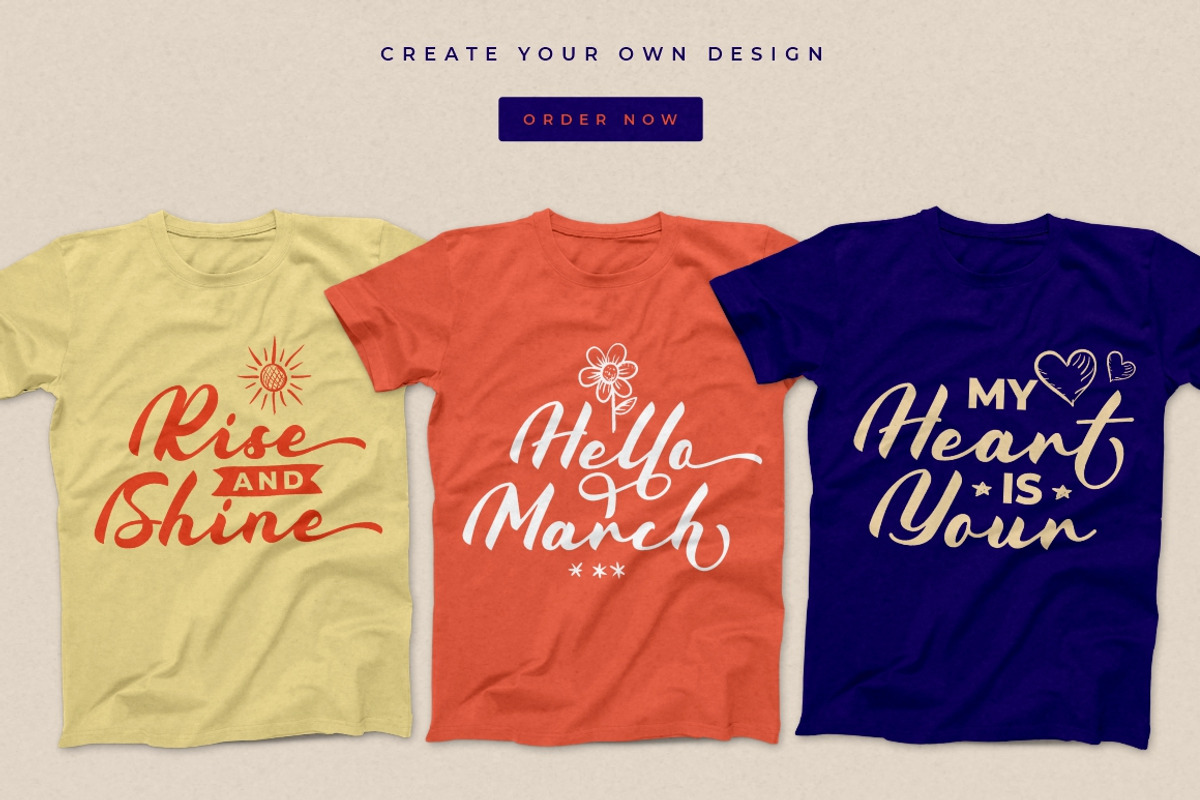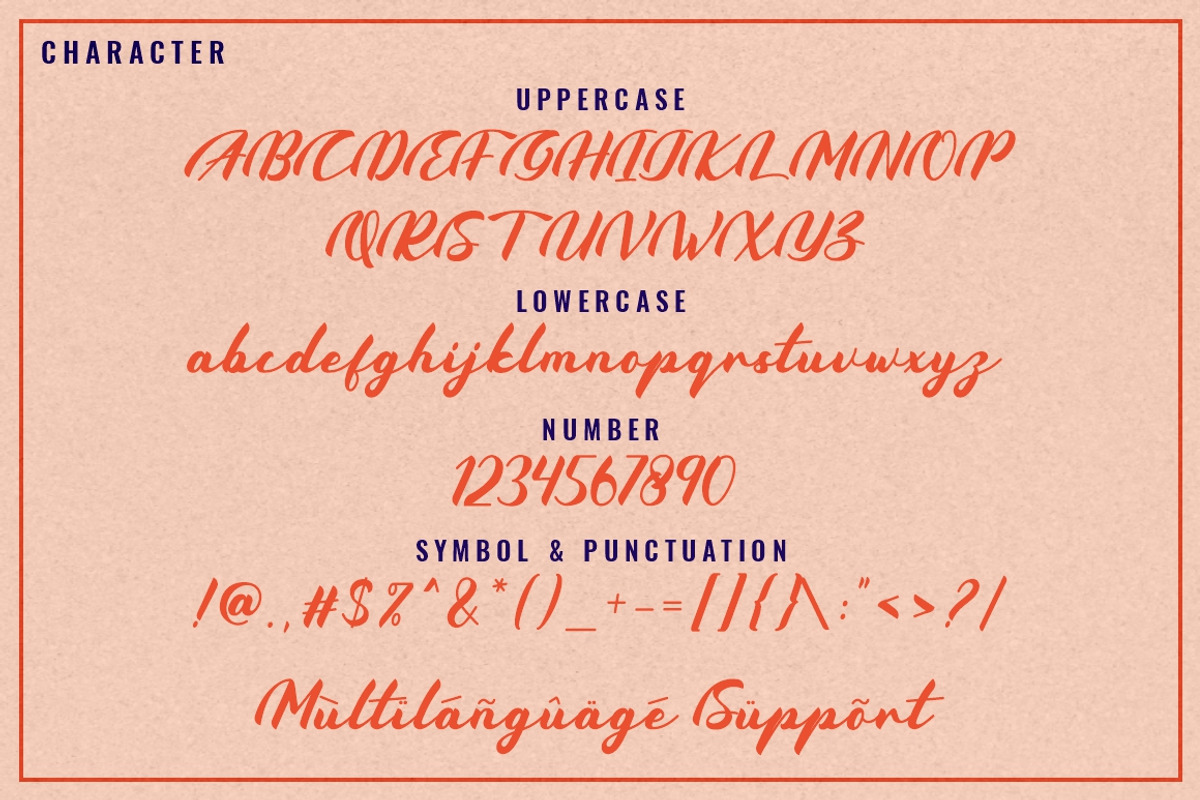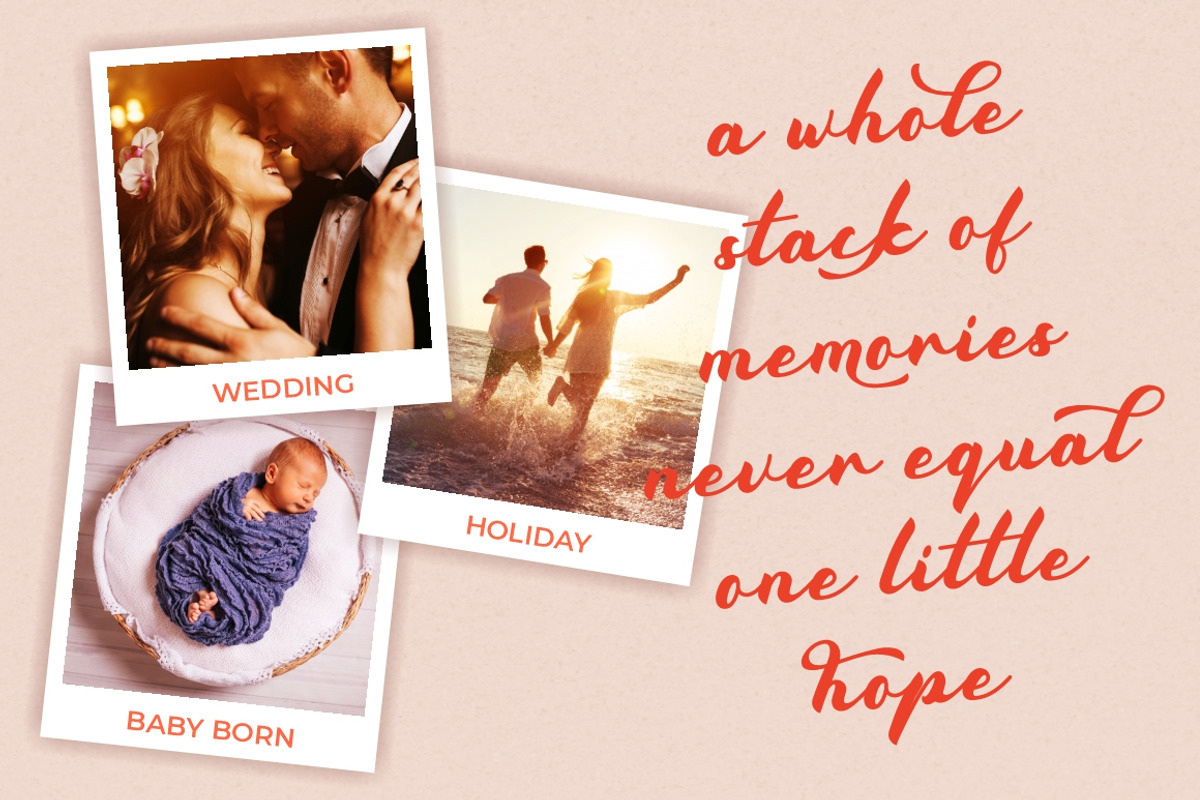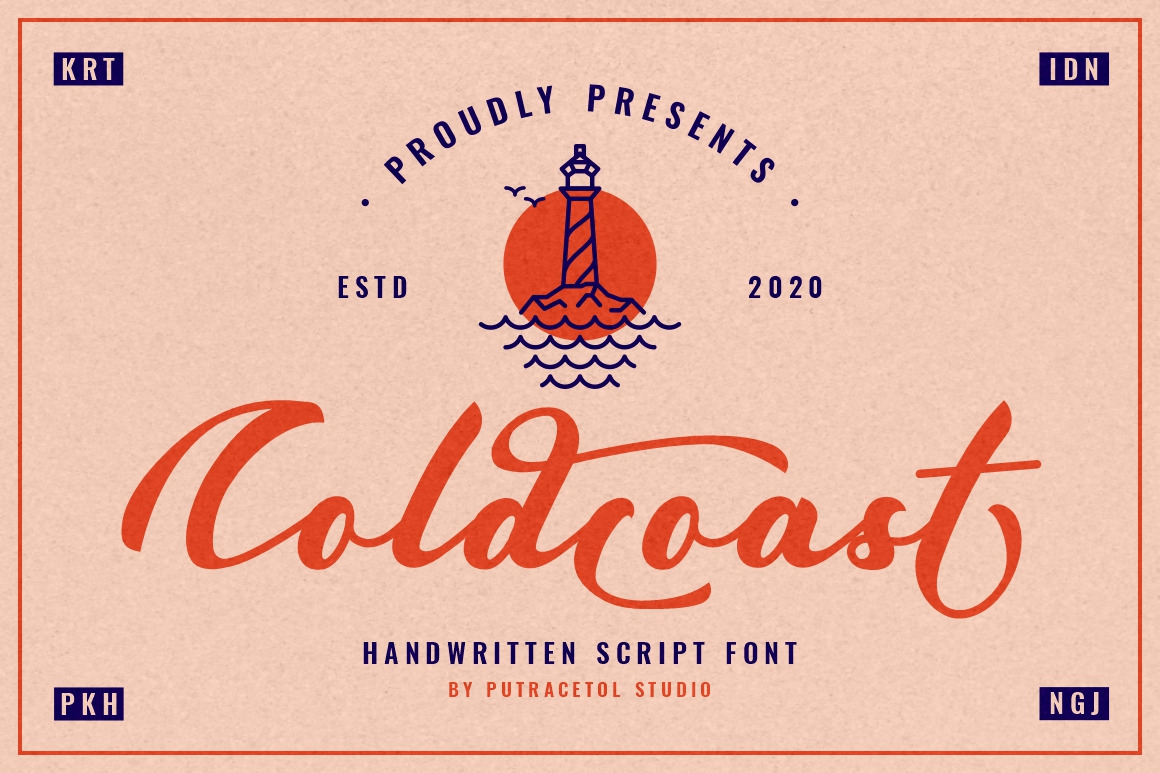
Coldcoast - Modern Handwritten Font
Coldcoast
Coldcoast is a modern handwritten script that inspired by streetwear and combination hand lettering style. Coldcoast Ideal for logos, badge, label, apparel, club, event, handwritten quotes, product packaging, header, poster, merchandise, social media & greeting cards. This font has many opentype features like ligature, alternate and also support multi language.